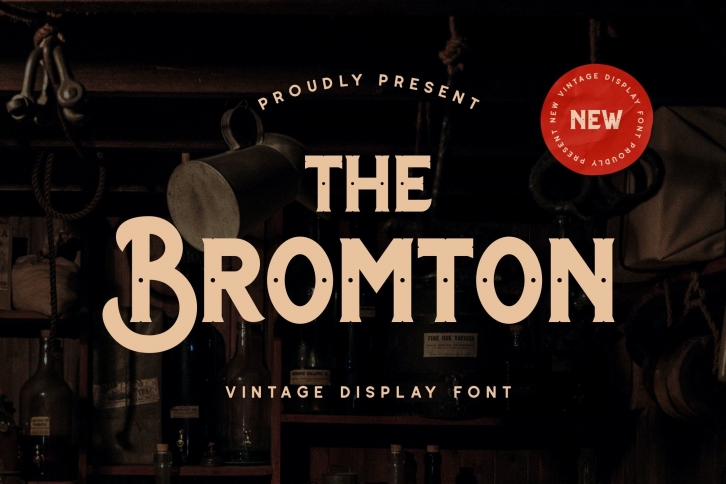
Bromton is a stylish and modern serif font that will impress you with its versatility! Elegant and charming, this typeface can elevate the looks of any project, from personal branding to fashion magazines!